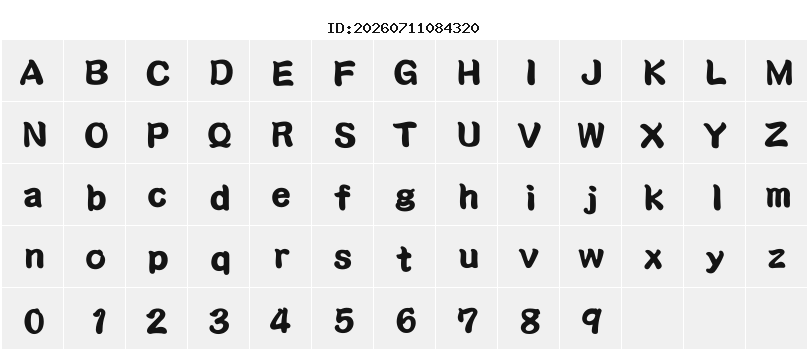
HanWangKanTan Preview
• Font Name: HanWangKanTan
• Full Font Name: HanWangKanTan
• Version: HtWang Fonts(1), March 8, 2002; 1.00, initial release HtWang Fonts(17), March 5, 2004. GJL(040326).
About HanWangKanTan.ttf
HanWangKanTan.ttf is a modern, elegant sans-serif font designed for ultimate readability and visual harmony. Perfect for branding, headlines, web design, and print materials.